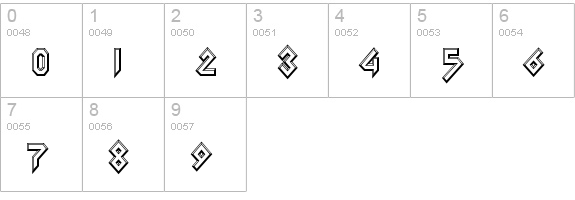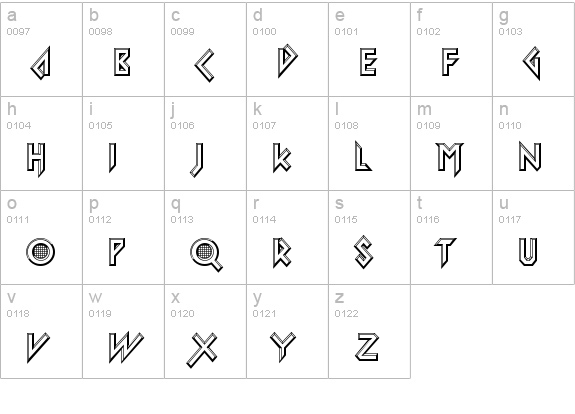
Iomanoid font is a modern and stylish typeface that will bring a touch of sophistication to any design project. With its clean lines and unique letterforms, this font is sure to make a statement. Whether you're creating a logo, designing a website, or crafting a poster, Iomanoid font will add a professional and polished look to your work. One of the best things about Iomanoid font is that it is free. That's right, you can download this amazing font for absolutely no cost at FontsMarket.com. This means that you can use Iomanoid font in all of your personal and commercial projects without having to worry about breaking the bank. But don't let the fact that Iomanoid font is free fool you into thinking that it lacks quality. This font has been meticulously crafted with attention to detail, ensuring that each character is perfectly balanced and visually appealing. The result is a font that is not only beautiful to look at, but also easy to read and versatile in its use. Whether you're a professional designer or a hobbyist, Iomanoid font is a must-have in your font collection. Its sleek and modern design will elevate any project, giving it a contemporary and sophisticated edge. So why wait? Head over to FontsMarket.com and download Iomanoid font today. You won't be disappointed.